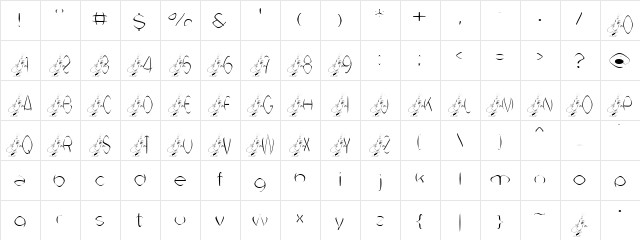
Pesterer Regular
Design Context for Pesterer Typeface
Pesterer is a composed and adaptable typeface that performs quietly and consistently across a wide range of design contexts.